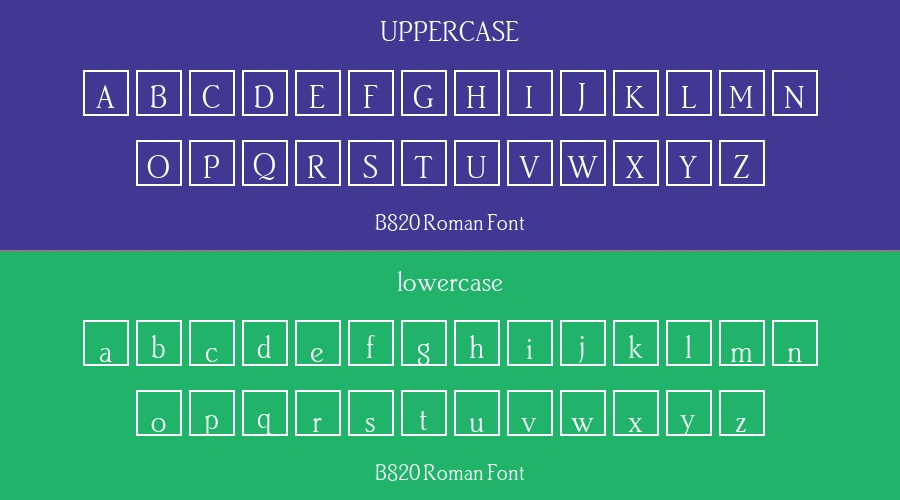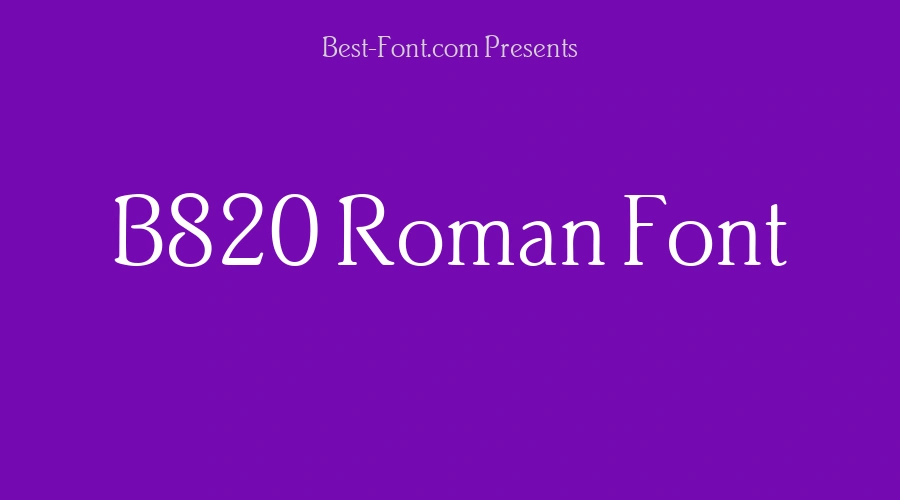
About B820 Roman Font
B820 Roman Font embodies typographic excellence through its masterful combination of artistic freedom and color consistency. Created for wayfinding systems, this typeface delivers exceptional clarity and visual appeal across all applications. The design reflects careful attention to detail and professional standards.
Advanced capabilities include distinctive pen-inspired details and versatile language support, giving designers creative control. When used in hero imagery, B820 Roman Font exhibits remarkable memory recall. The harmonious balance between cap height ratio and market positioning sets this typeface apart.